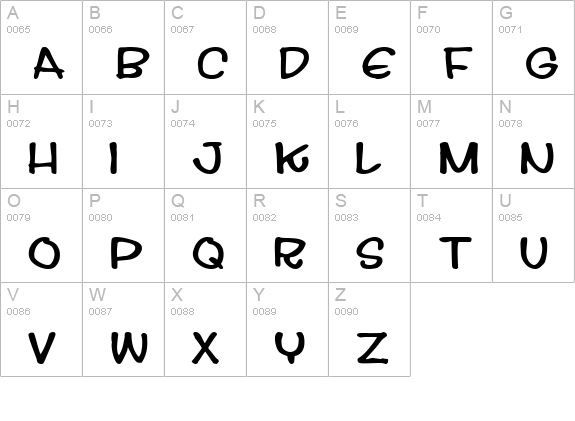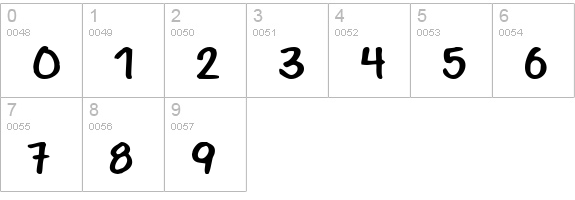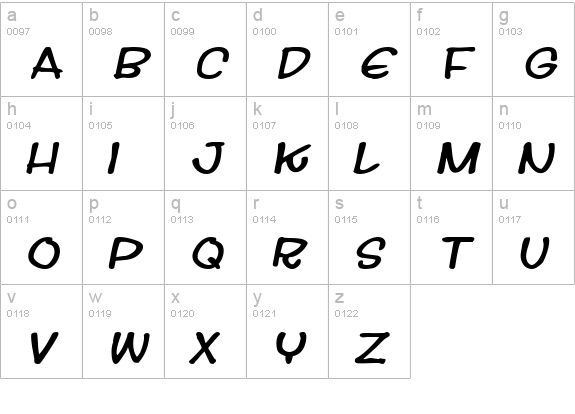
Streetwise buddy Font Details
Introducing the Streetwise Buddy font, a versatile and trendy typeface perfect for all your design projects. With its urban and edgy appeal, this font exudes a cool and modern vibe that will make your designs stand out. Whether you're working on a logo, poster, or social media graphics, Streetwise Buddy is the perfect choice to add a touch of street-smart style. The best part? Streetwise Buddy is available for free download at FontsMarket.com! This means you can easily access this captivating font without any cost, making it a fantastic resource for designers, creatives, and enthusiasts alike. Don't miss out on the opportunity to elevate your projects with the unique charm of Streetwise Buddy. Download it now and let your creativity run wild!